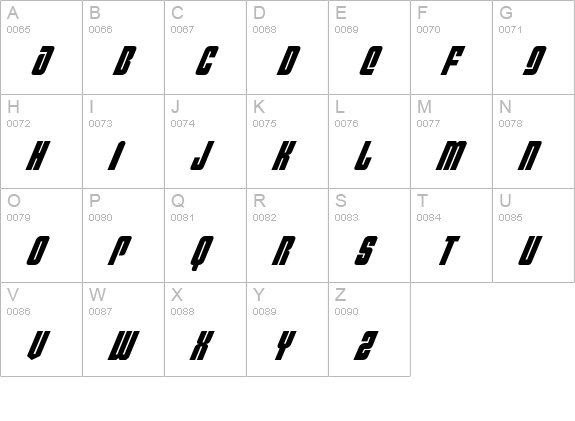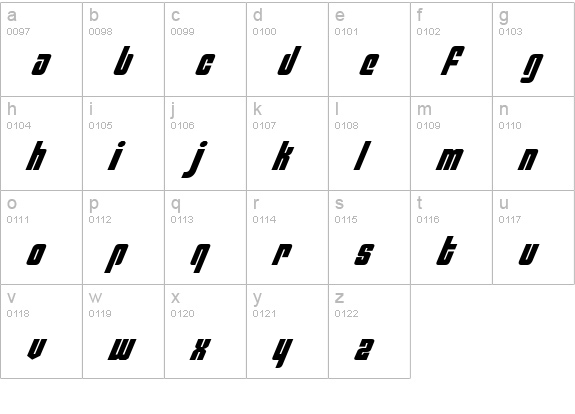
Philadelphia Italic Font Details
Philadelphia Italic is a distinctive, italic variant in the Philadelphia typeface family \xE2\x80\x94 well suited to design and typography projects.
Introducing Philadelphia Italic font, a stunning typeface that effortlessly combines elegance with a touch of sophistication. This font is the epitome of timeless beauty, with its sleek and slender letterforms that gracefully flow across the page. Philadelphia Italic font exudes a sense of refined charm, making it the perfect choice for any project that requires a touch of class. Whether it's a wedding invitation, a luxury brand logo, or an editorial spread, this font will add a touch of elegance that is sure to captivate your audience. What sets Philadelphia Italic font apart is not only its stunning aesthetic, but also its versatility. It seamlessly adapts to any design concept, effortlessly enhancing the overall visual appeal. Its slanted letterforms add a dynamic element, creating a sense of movement and energy. But what truly sets Philadelphia Italic font apart is that it is free. Yes, you read that right! This exceptional font is freely available to download at FontsMarket.com. Now you can elevate your designs without breaking the bank. So why wait? Unlock the beauty and versatility of Philadelphia Italic font today. Download it for free at FontsMarket.com and let your creativity soar to new heights. Embrace the elegance, embrace the sophistication, and create designs that leave a lasting impression.